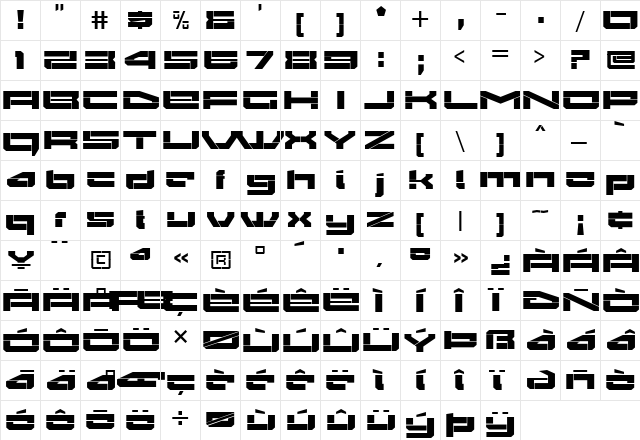
Gendouki Regular
Design Context for Gendouki Typeface
Gendouki is a composed and adaptable typeface that performs quietly and consistently across a wide range of design contexts.